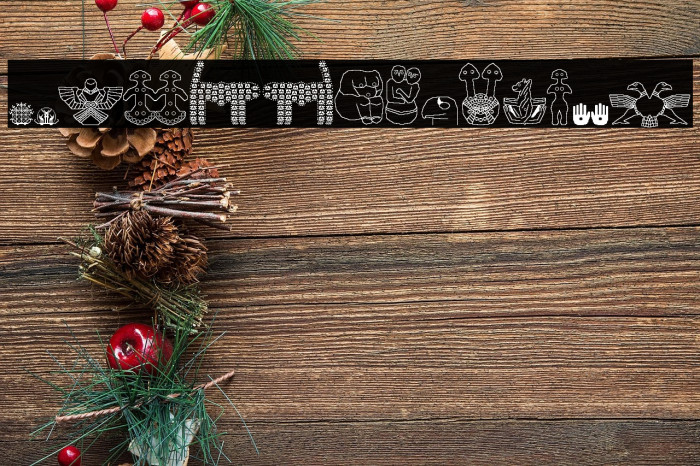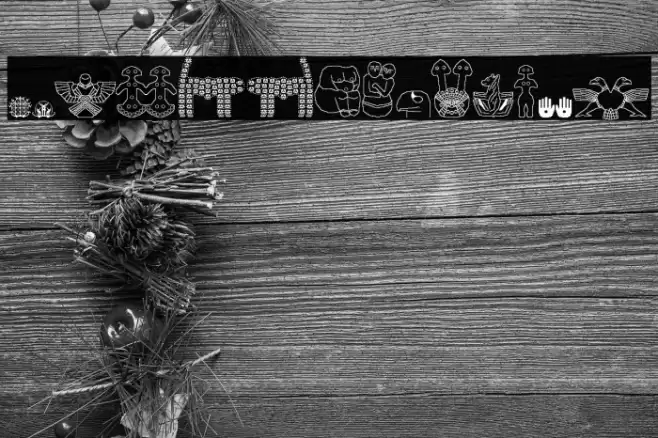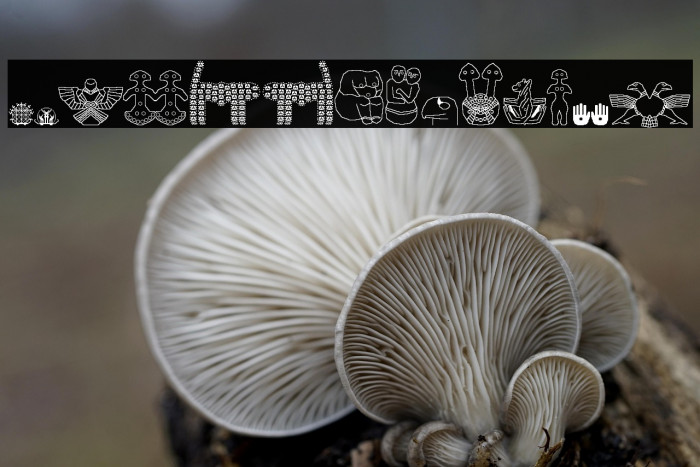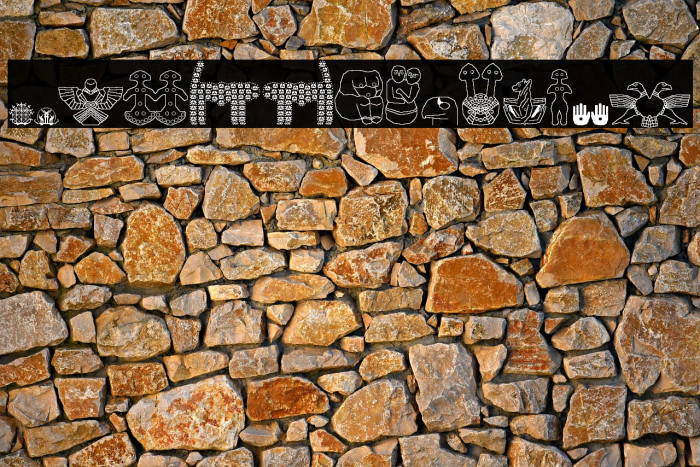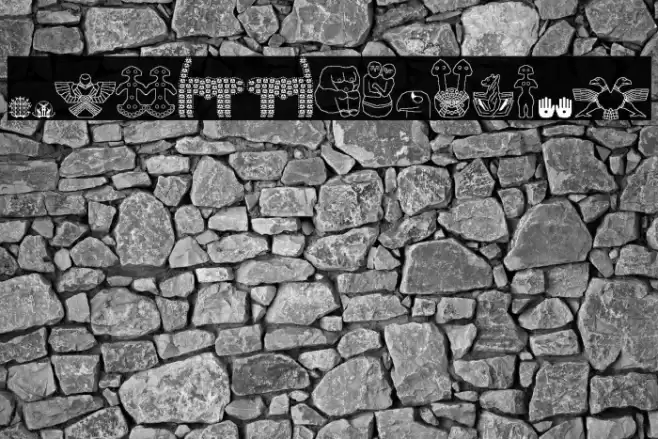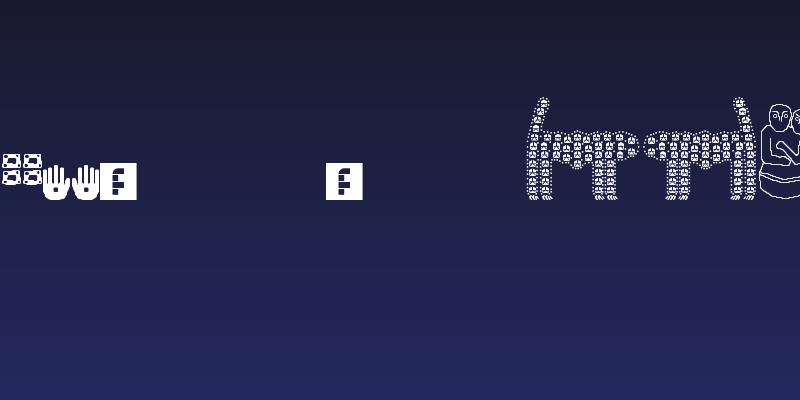
anadolu Regular Font
anadolu Regular Description
This font is a decorative and artistic representation, featuring intricate and detailed illustrations that replace traditional letterforms. Each character is uniquely designed with elements that resemble ancient or cultural symbols, making it highly stylized and thematic. The font showcases a variety of motifs, including animals, mythical figures, and abstract shapes, which are intricately woven into the design of each letter. This artistic approach gives the font a distinctive and eye-catching appearance, perfect for projects that require a unique and thematic visual element.
| Use Case | Logos, Posters, Artistic projects |
| Proposed Projects | Ideal for cultural or historical themed posters, artistic projects, unique branding, and decorative purposes. |